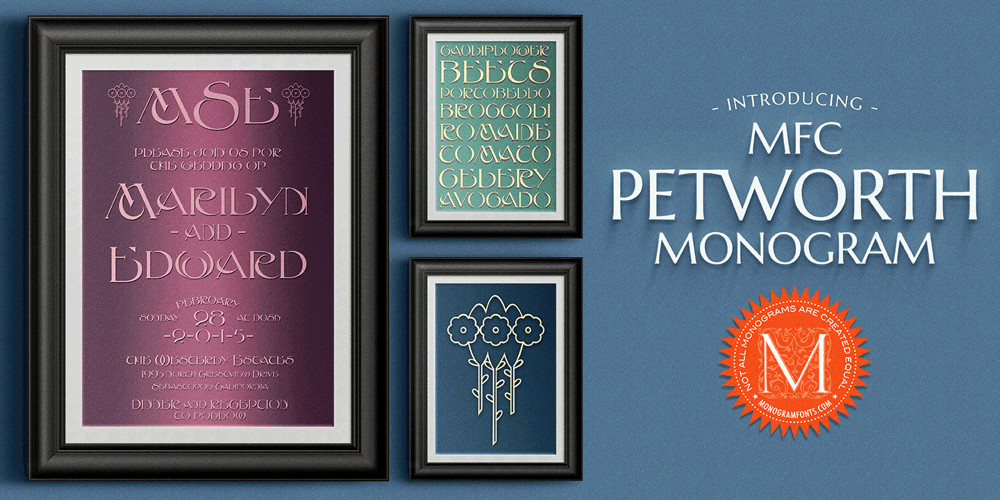
MFC Petworth Monogram Font Family was designed by Jim Lyles, Brian J. Bonislawsky and published by Monogram Fonts Co.. MFC Petworth Monogram contains 1 styles and family package options. The source of inspiration for MFC Petworth Monogram is a specimen from the 1917 “Strong’s Book of Designs”. This popular lettering style has been incorporated into numerous film type foundries of the past, but lacked digital permanence. We’ve expanded the original All Capitals glyphset to include smallcaps to make monograms, and have added numerals and basic punctuation for extended basic typesetting. Download and view the MFC Petworth Monogram Guidebook if you would like to learn a little more.